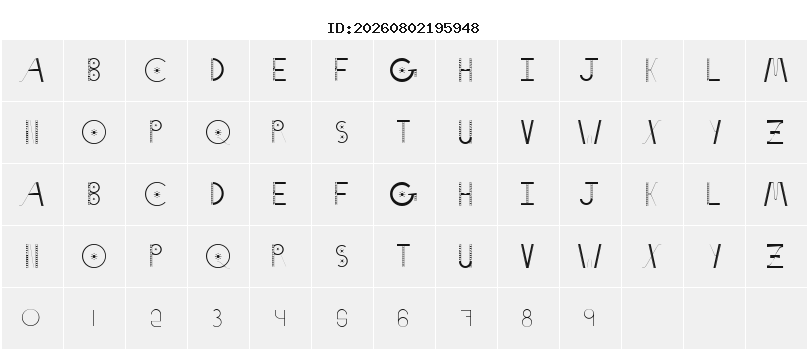
• Font Name: Notch Eight
• Designer: Alexander Westcott
About Notch Eight.ttf
Notch Eight.ttf is a modern, elegant sans-serif font designed for ultimate readability and visual harmony. Perfect for branding, headlines, web design, and print materials.